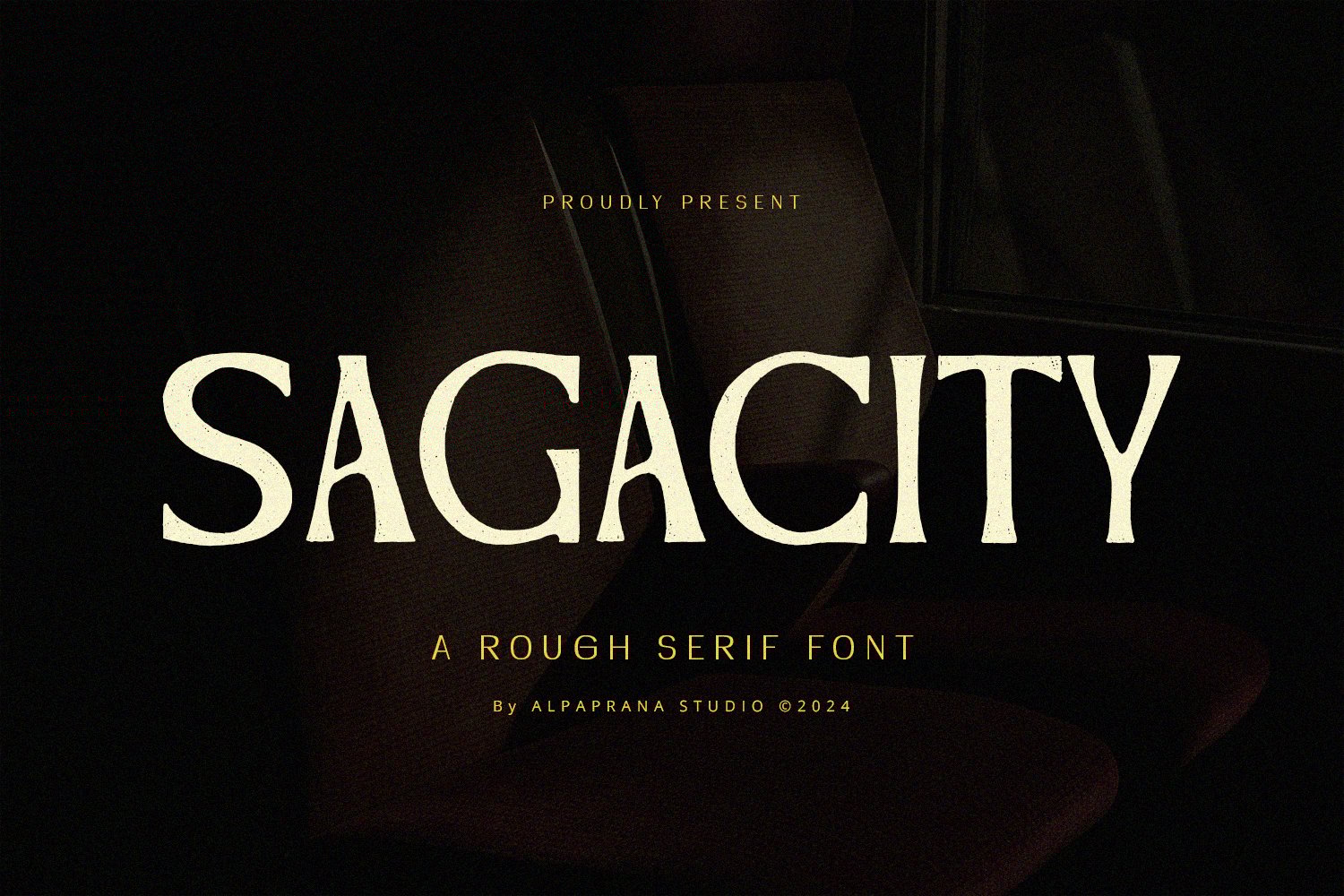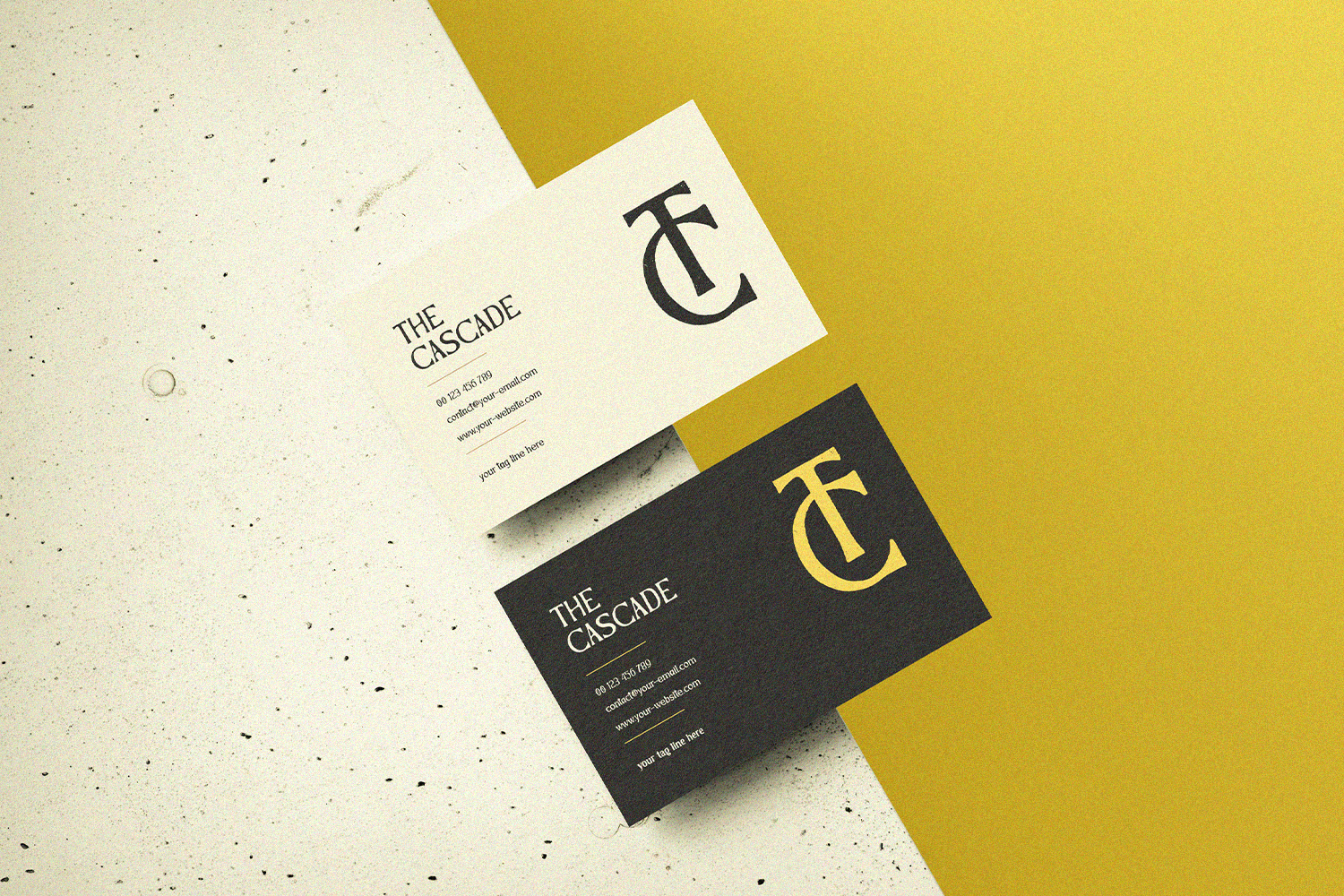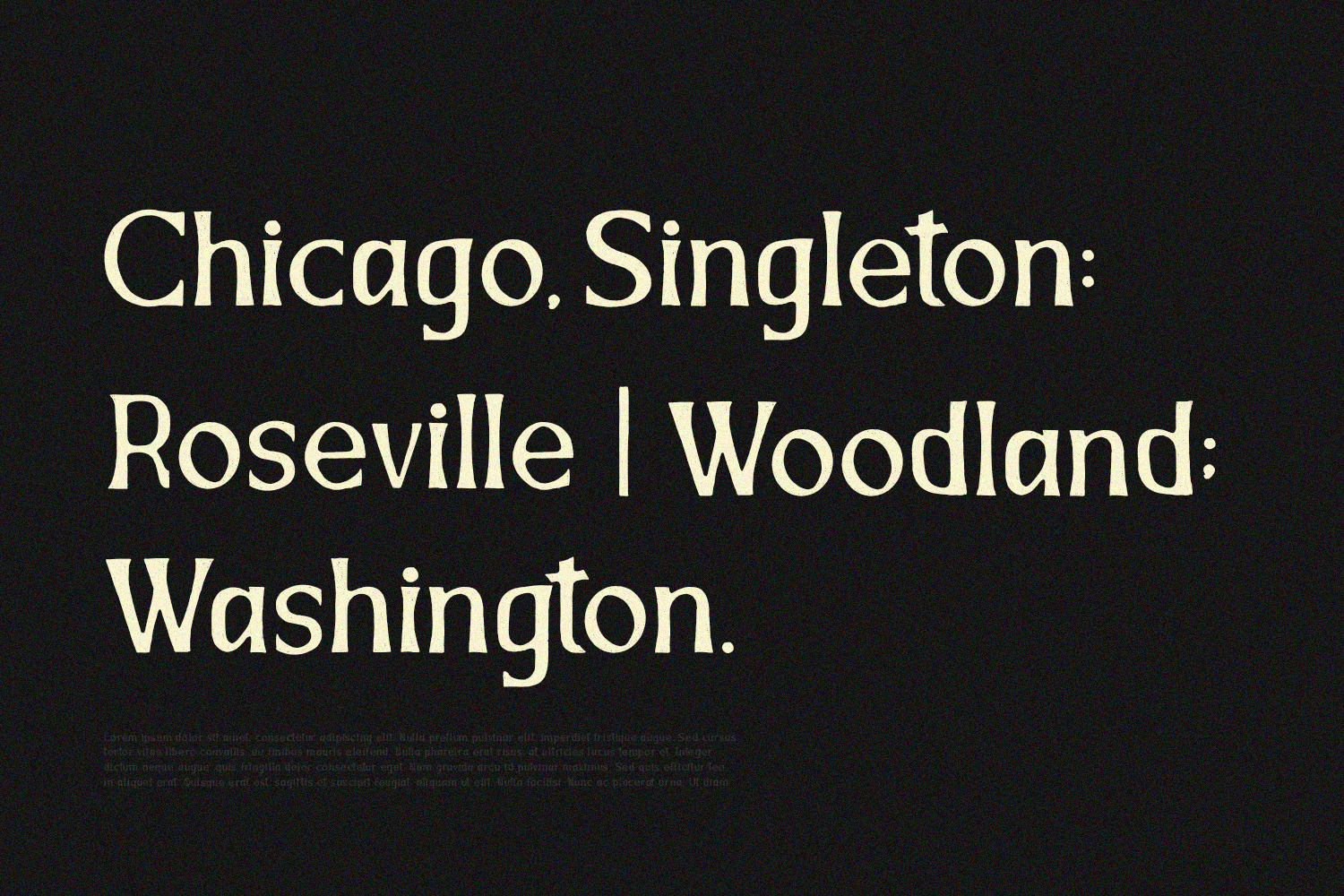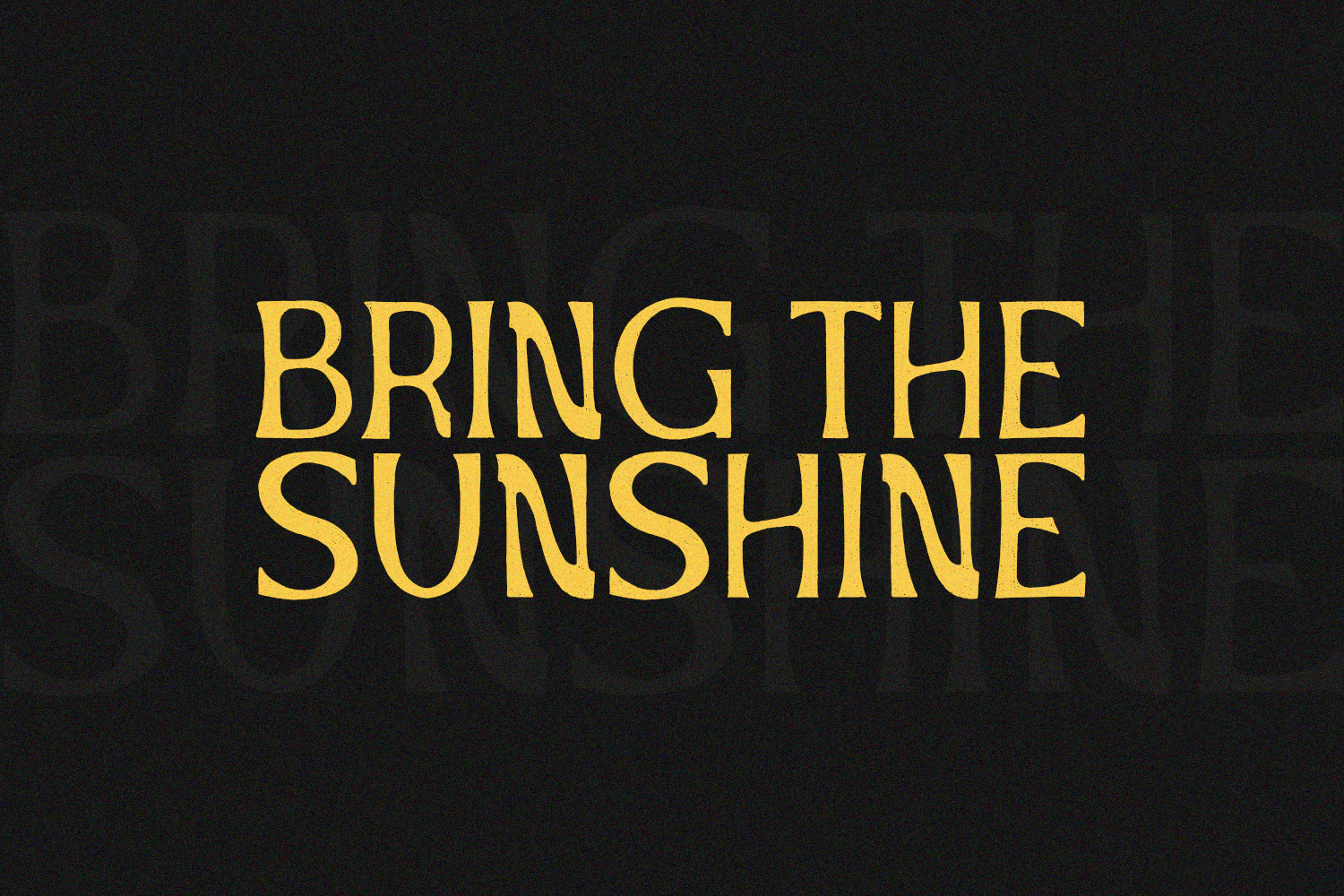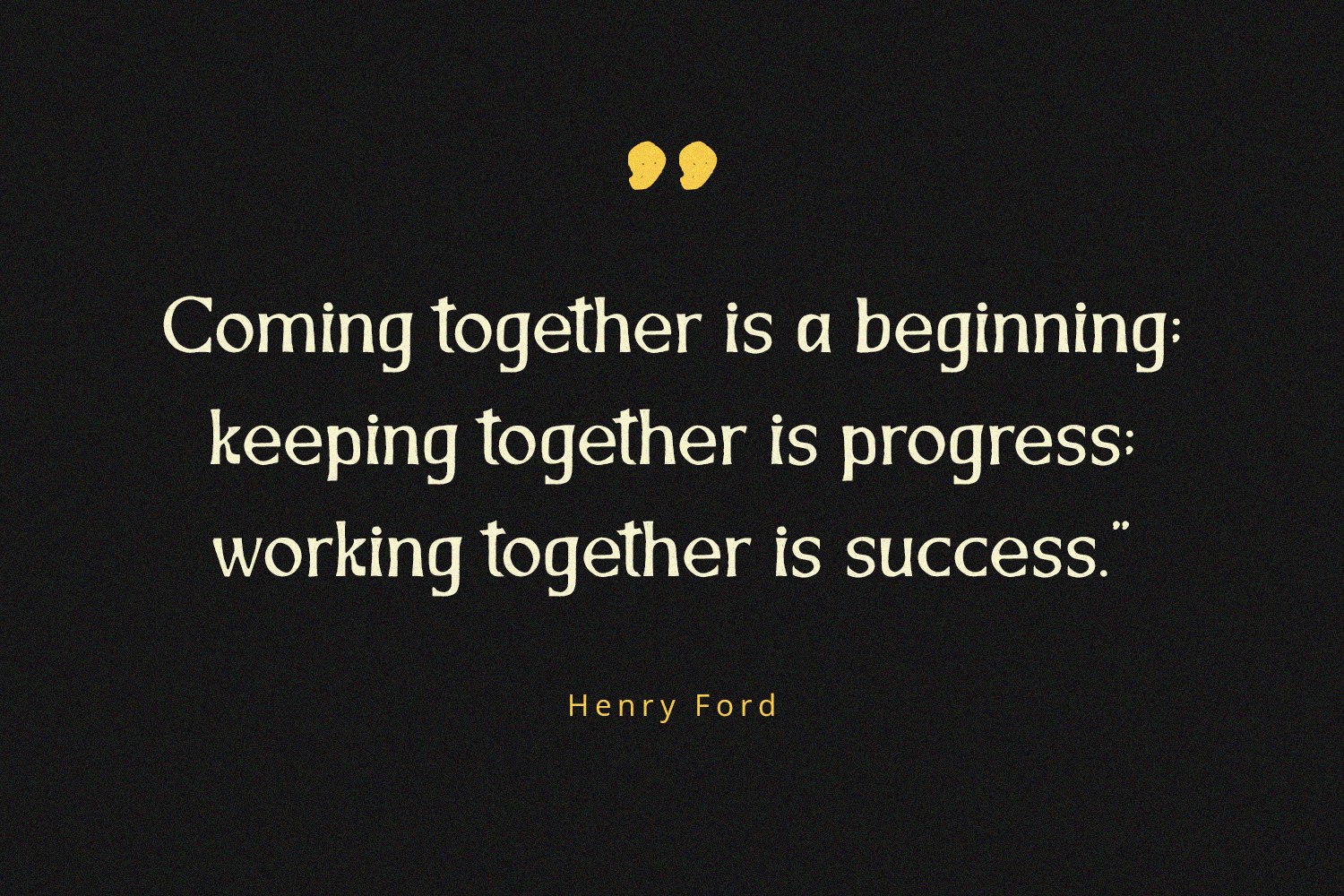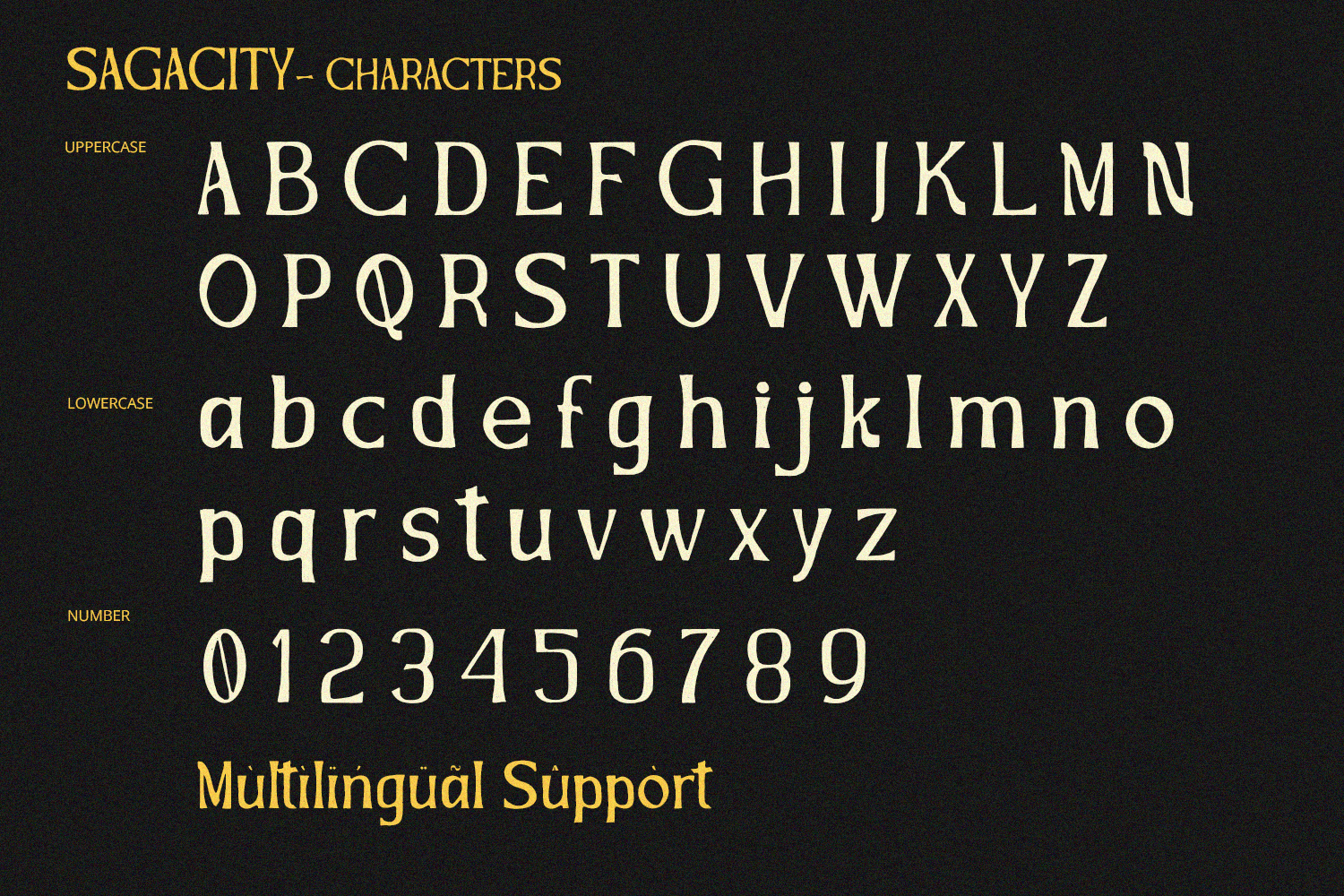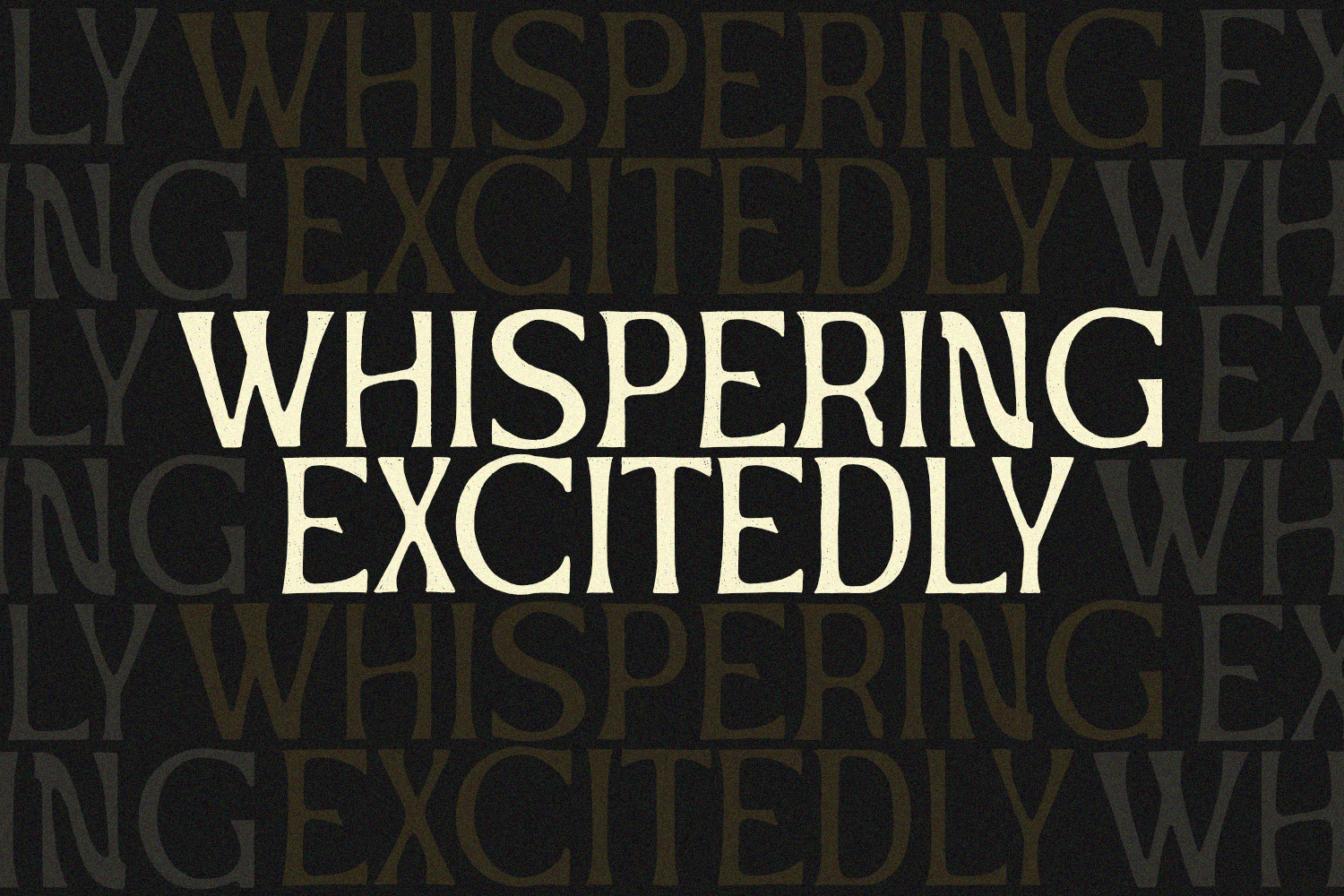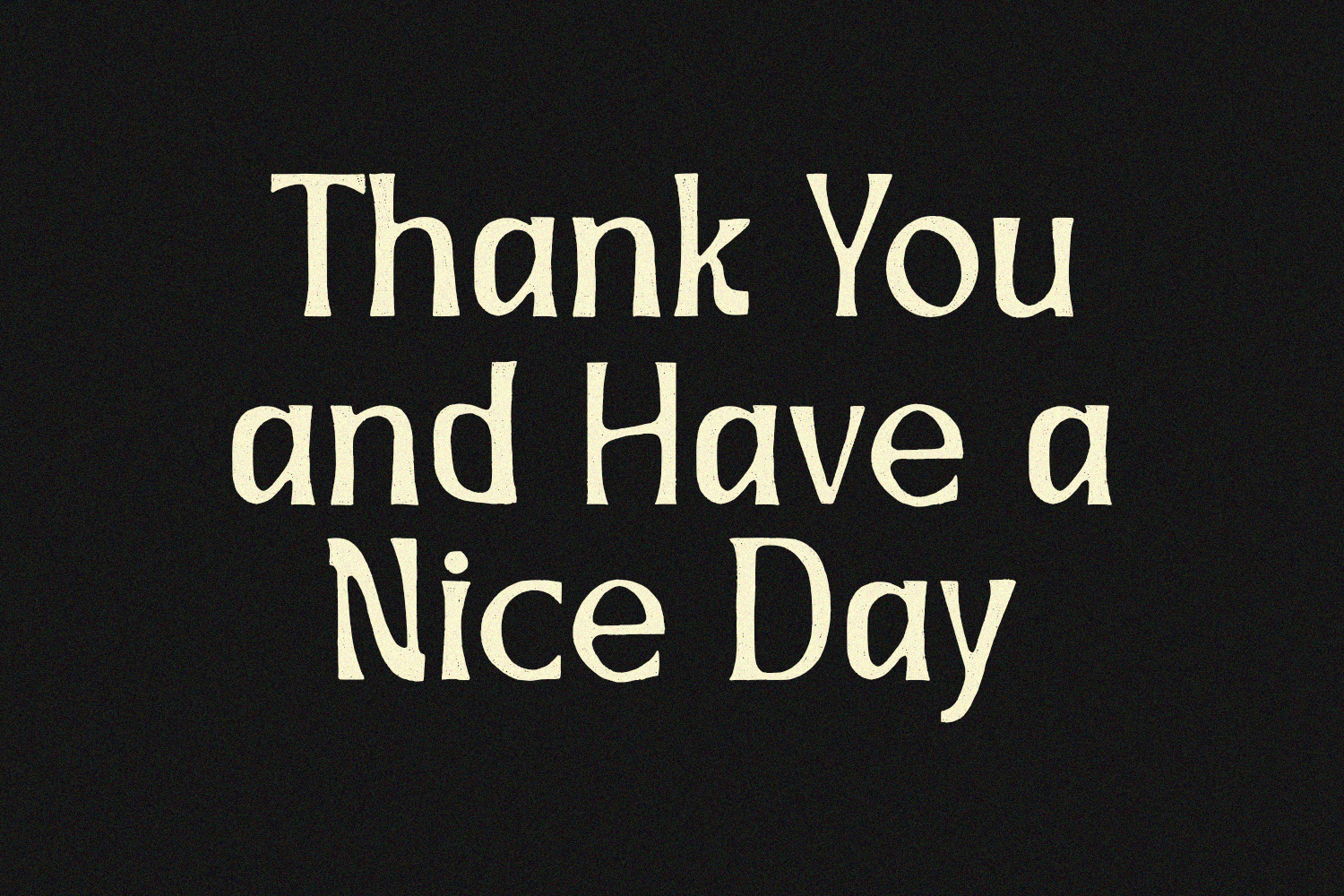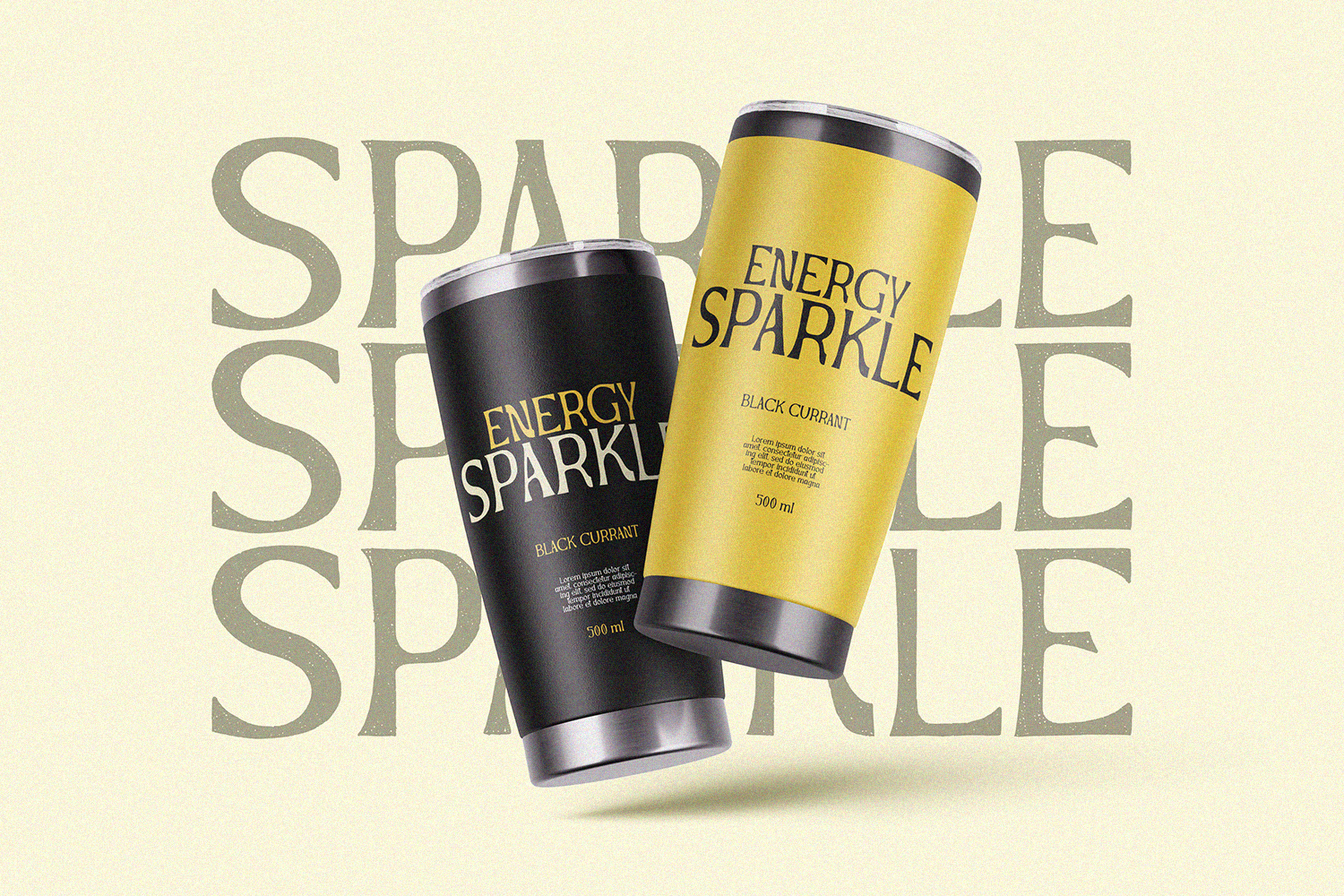
Sagecity - Rough Serif Font
Sagecity is a rough serif font with unique and classic feels. It will be perfectly used for Branding, Logo Design, Lettering, Logotype, Clothing, Poster, magazine, packaging, posters, shopping bags, t-shirts, book covers, photography, special events and other design project.
Features :
- Uppercase & Lowercase
- Numerals
- Punctuations (OpenType Standard)
- Accents (Multilingual Characters)
- Ligatures and Alternative Style Stylistic Set